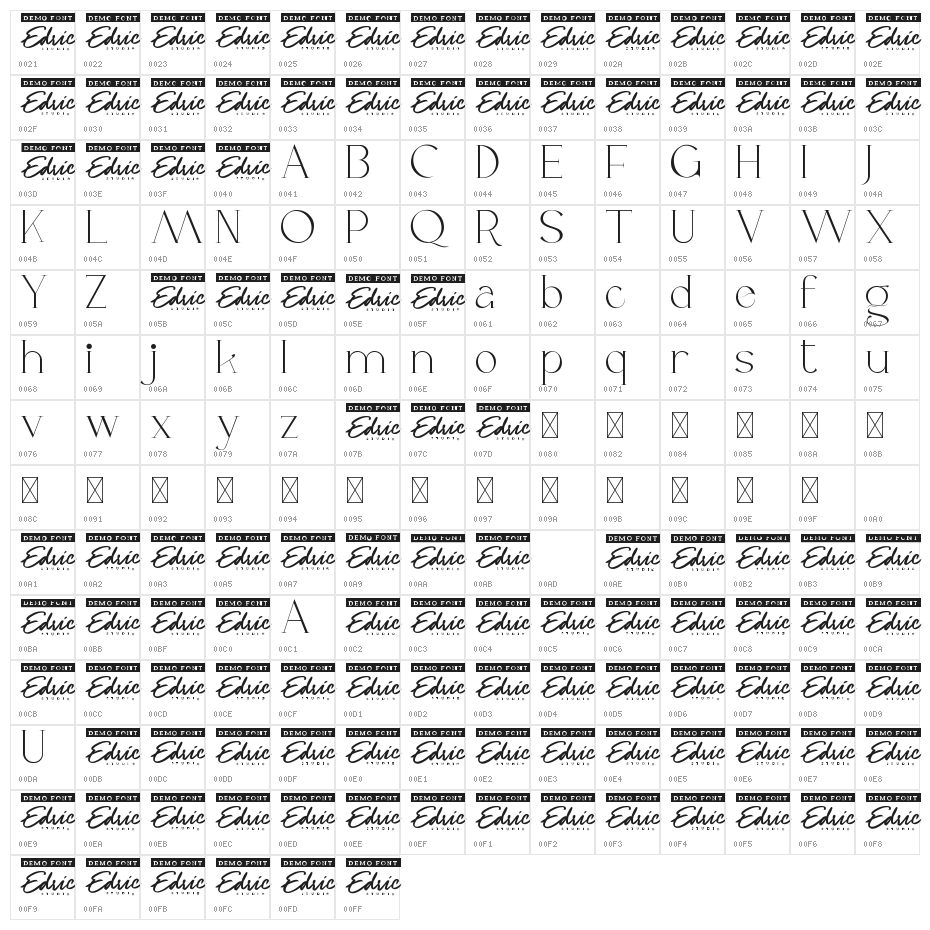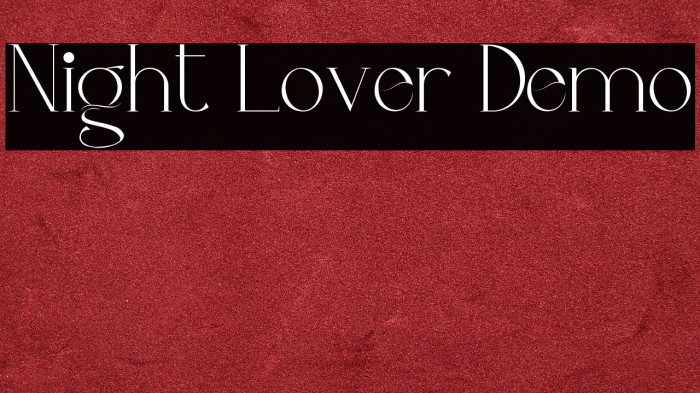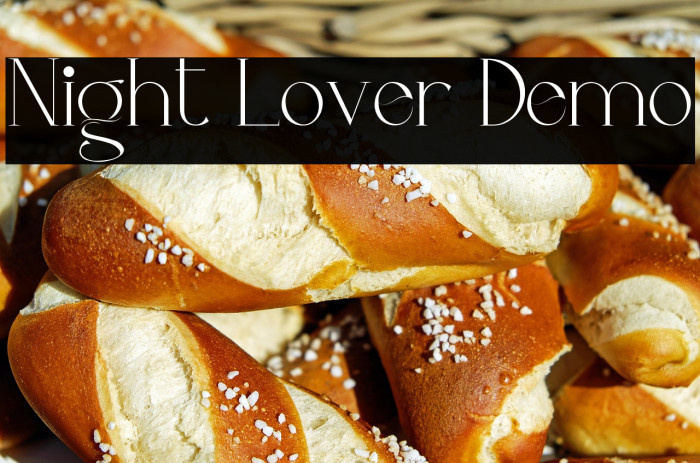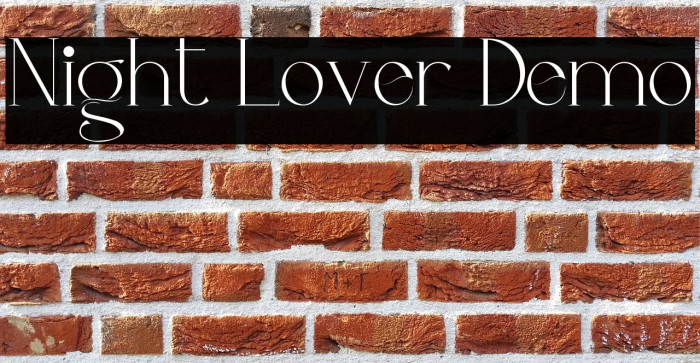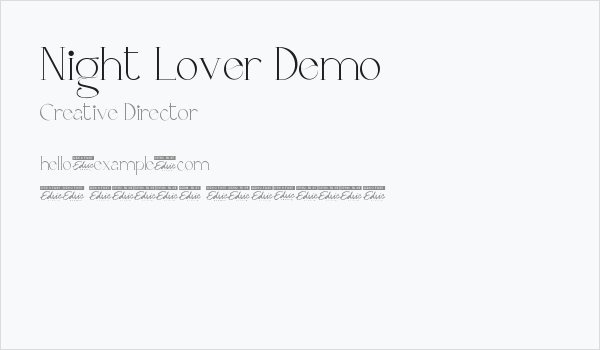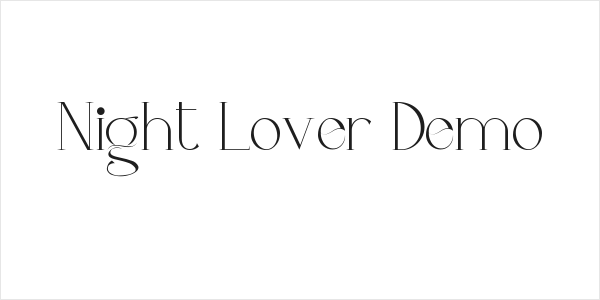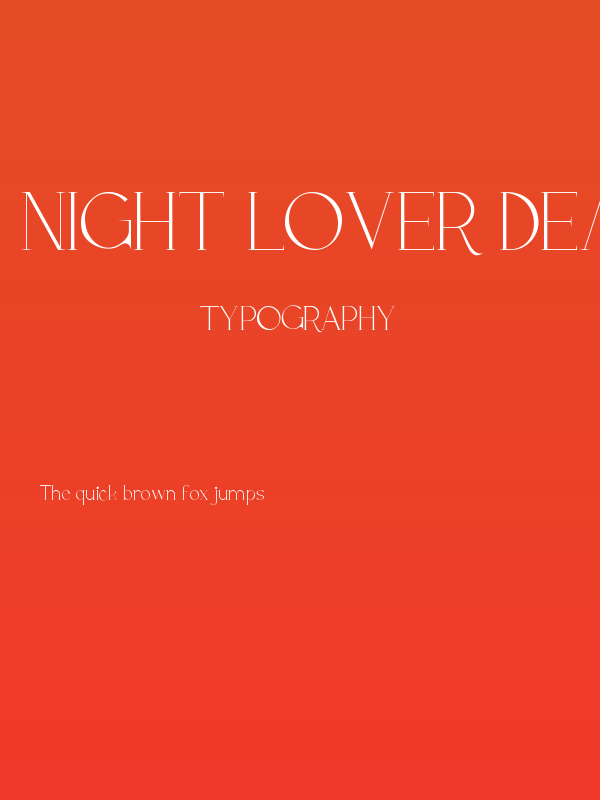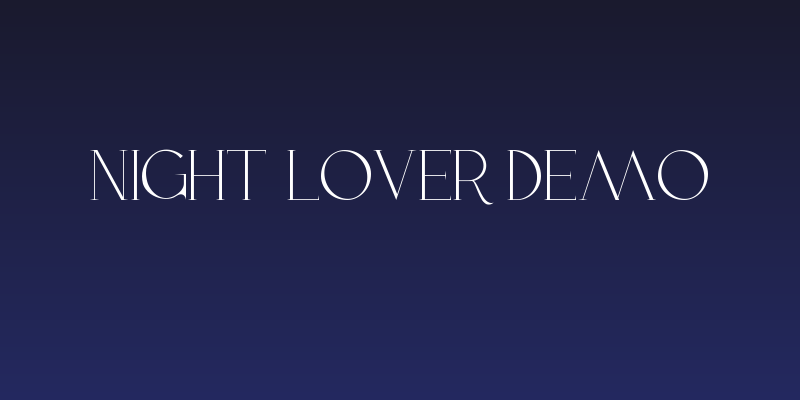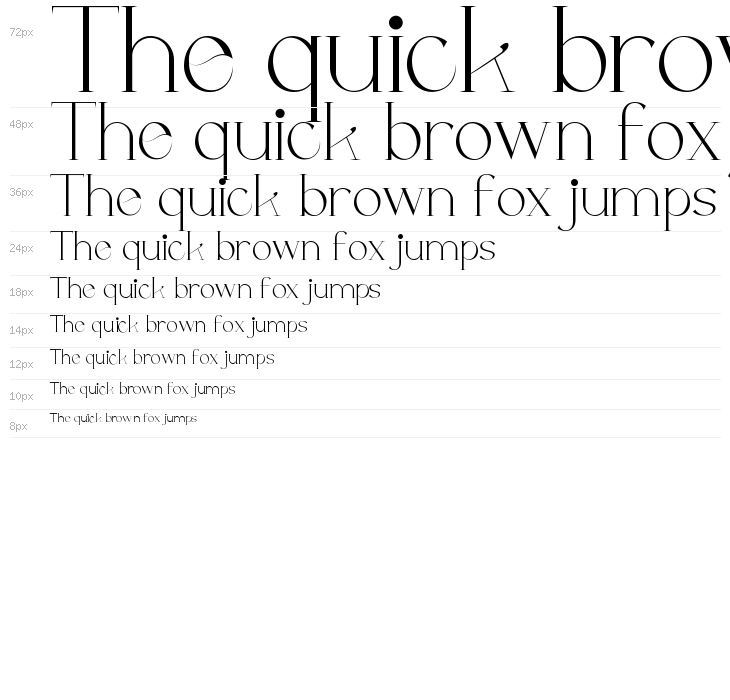
Night Lover Demo Font
Night Lover Demo Description
This font features a modern and elegant design with a high contrast between thick and thin strokes, giving it a sophisticated and stylish appearance. The uppercase letters are tall and slender, with sharp serifs that add a touch of refinement. The lowercase letters maintain a consistent style, with smooth curves and a graceful flow. The overall design is clean and minimalistic, making it suitable for a variety of design projects. The numbers and special characters are designed to complement the letterforms, ensuring a cohesive look across all elements.
| Proposed Projects | Ideal for luxury branding, fashion magazines, wedding invitations, and high-end product packaging. |